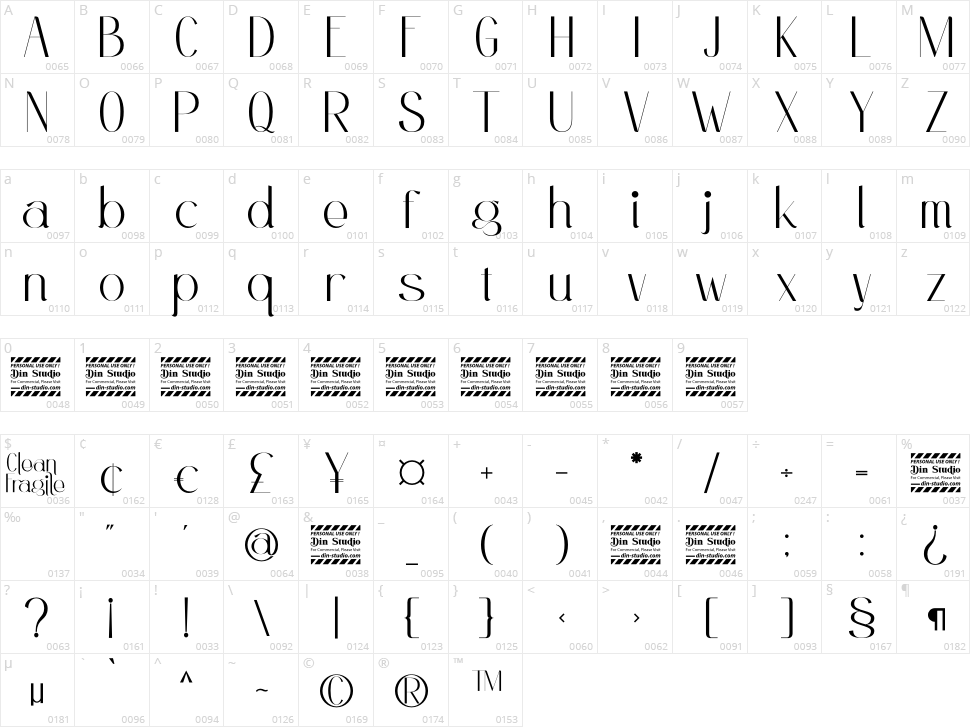
Clean Fragile
Clean Fragile is a gorgeous sans serif font, designed with the modern vibe. This font is perfect for anything adventurous, and direct. Every stroke, and curve was created to entice happiness and elegance.